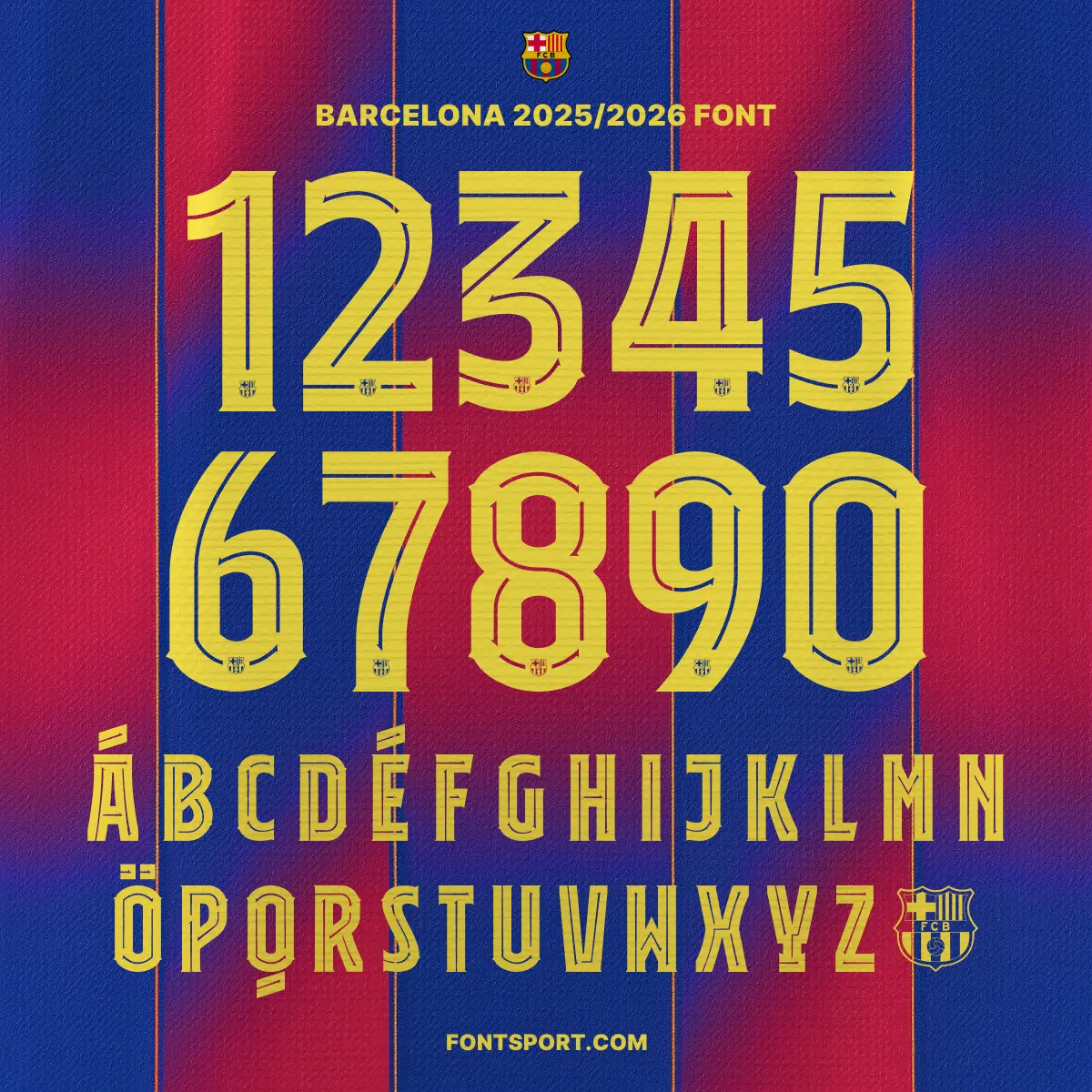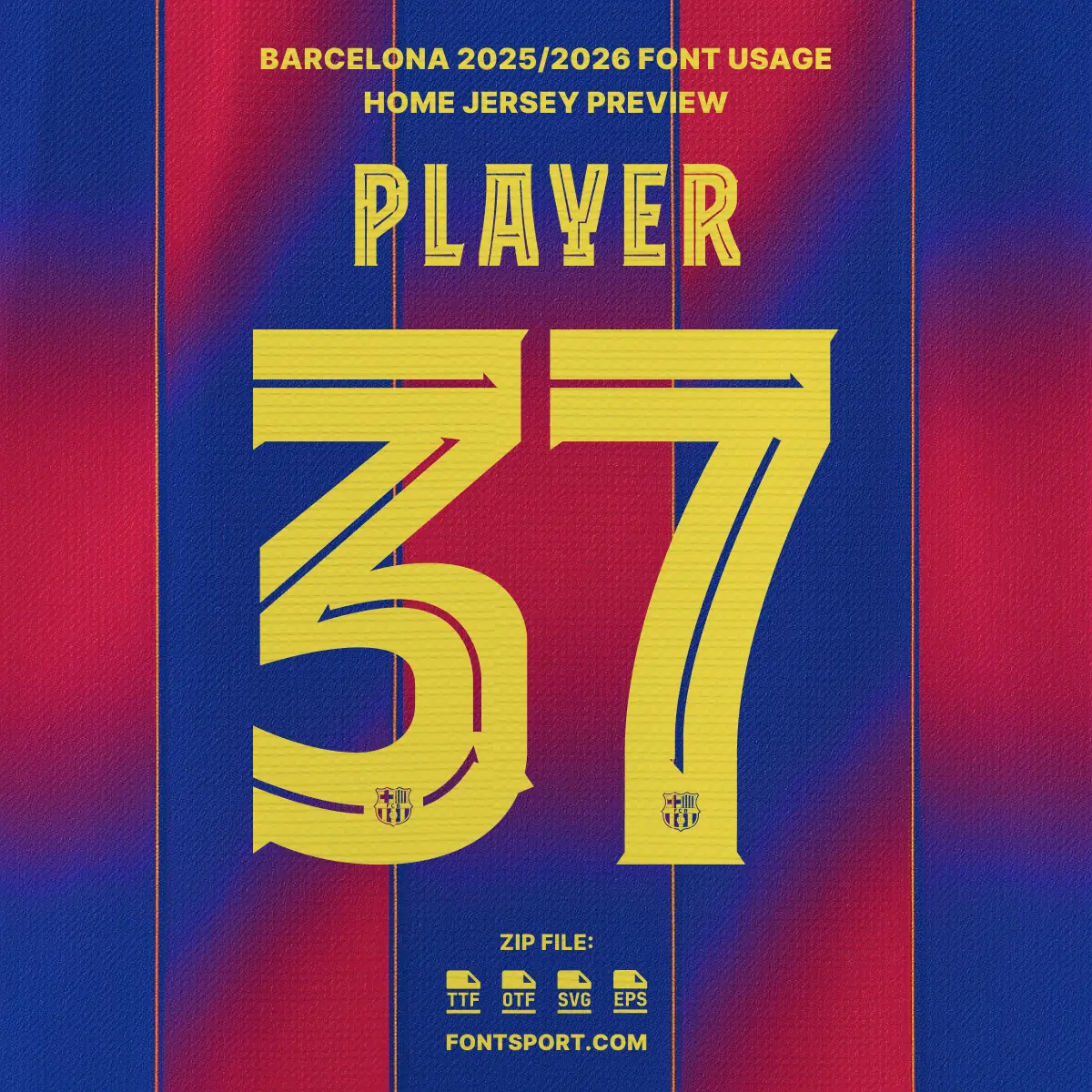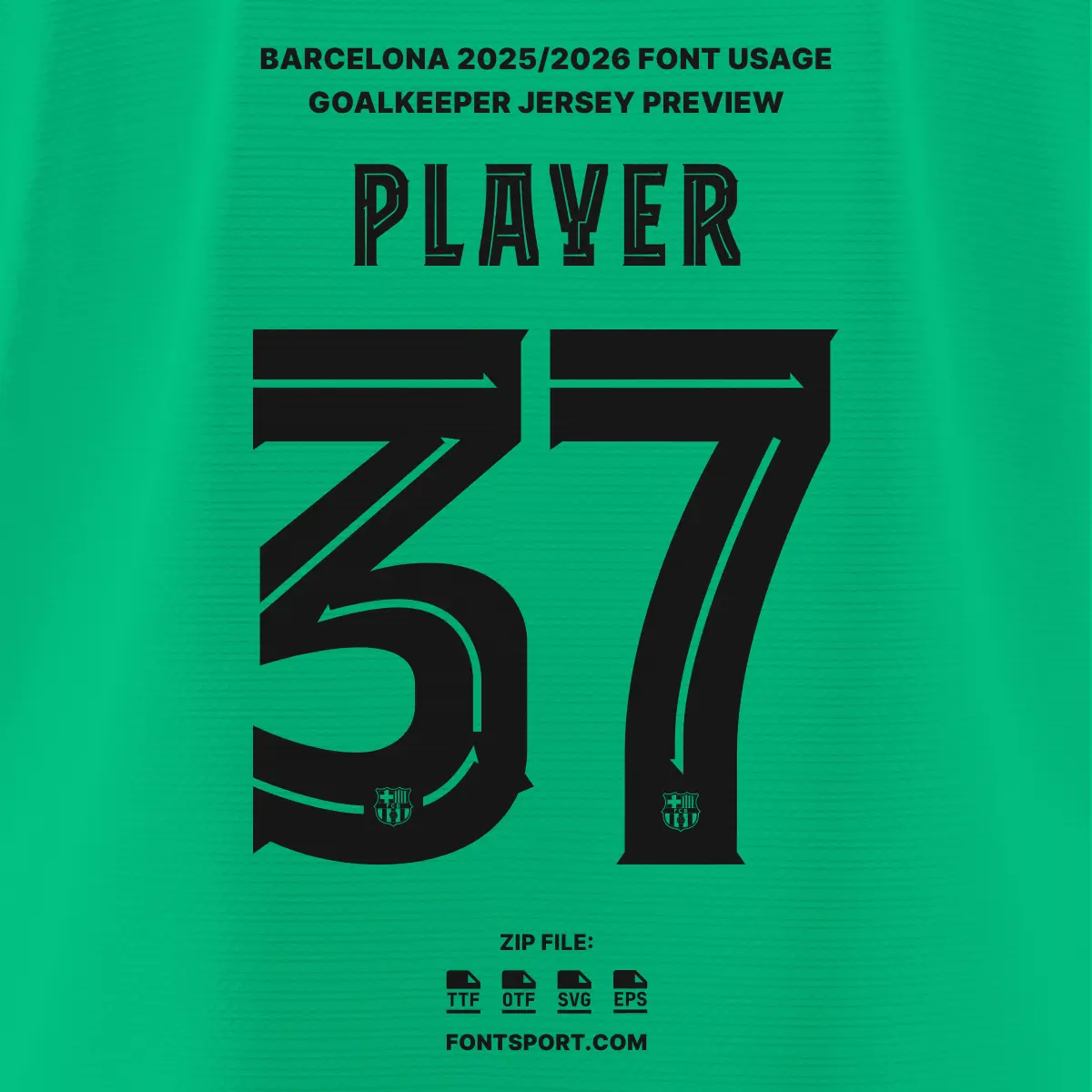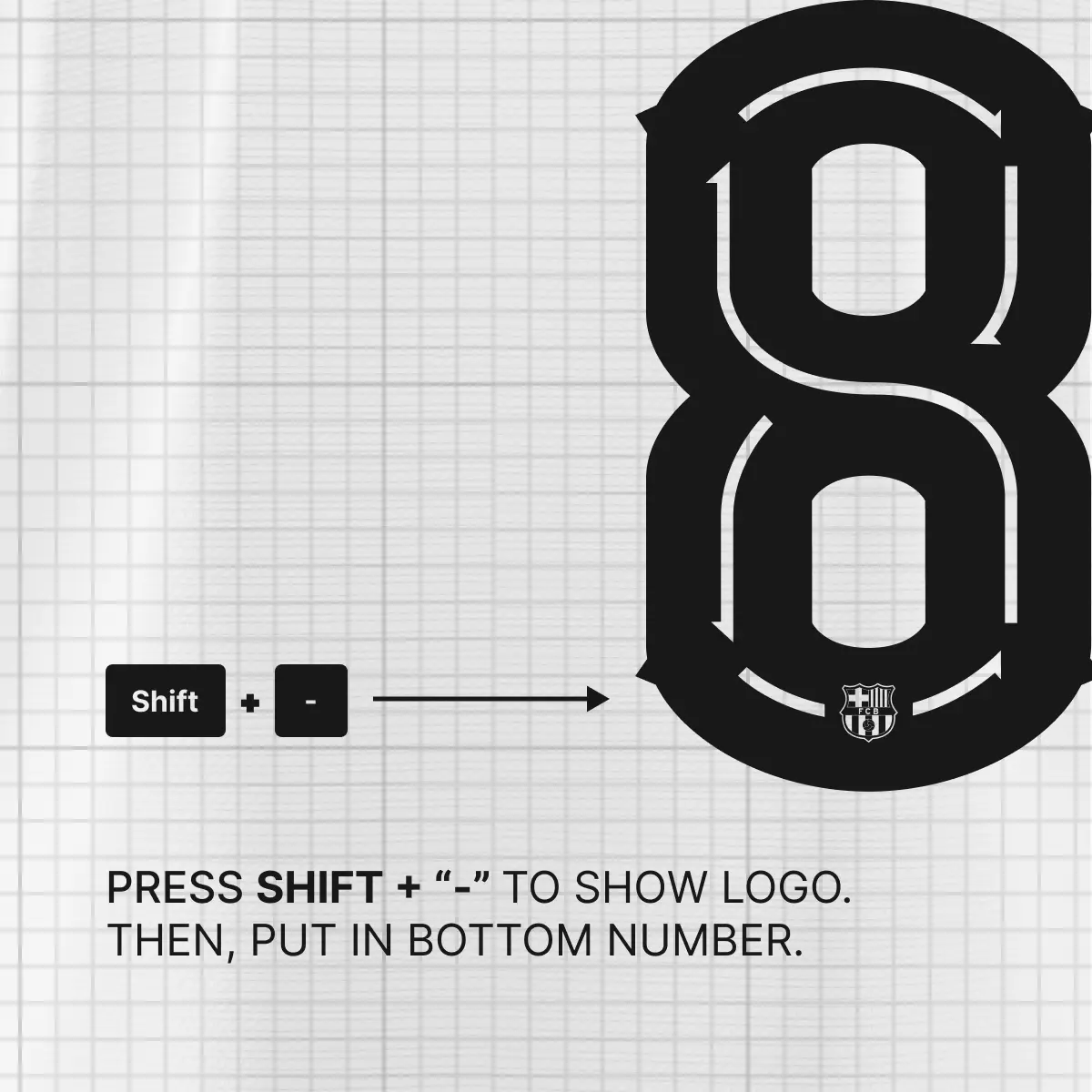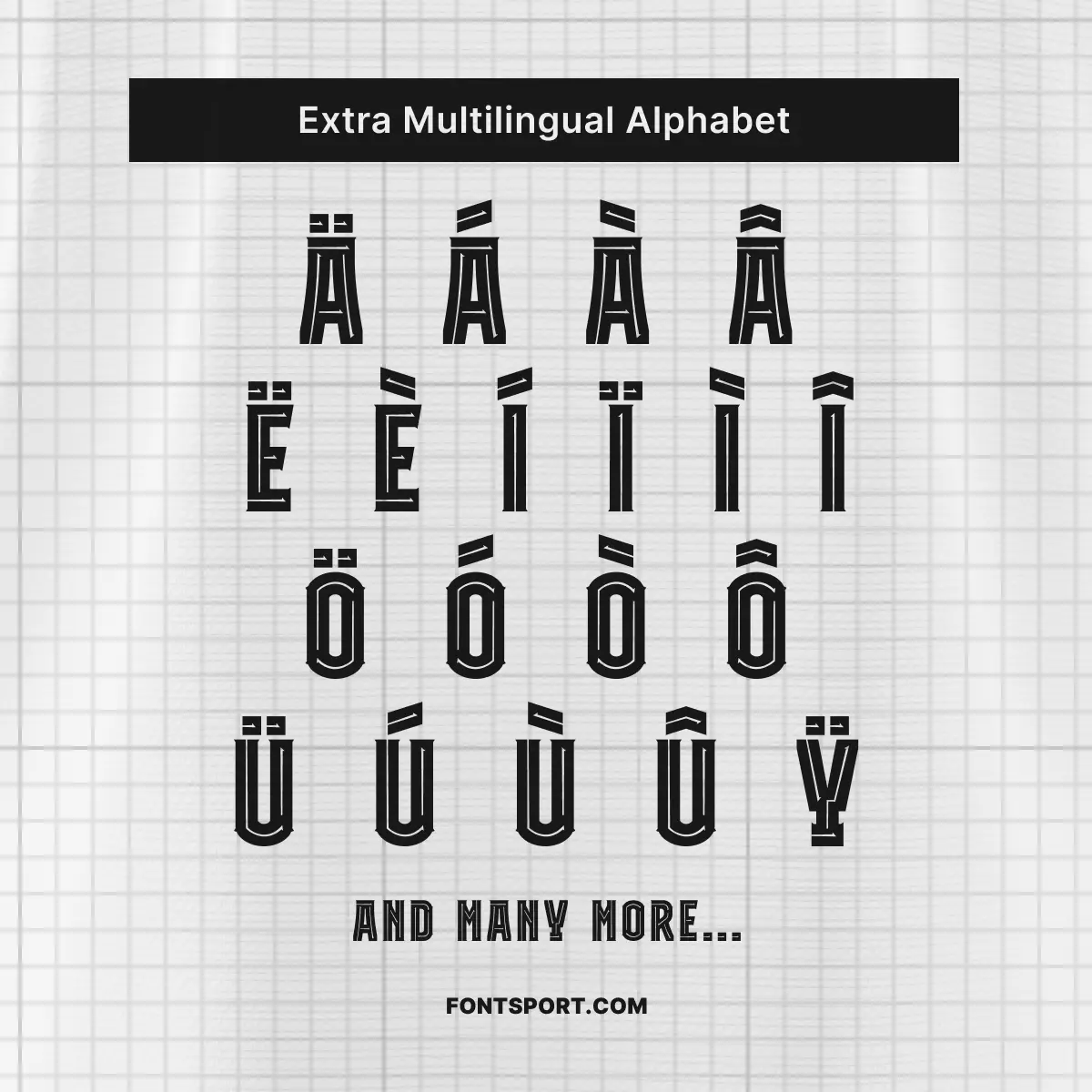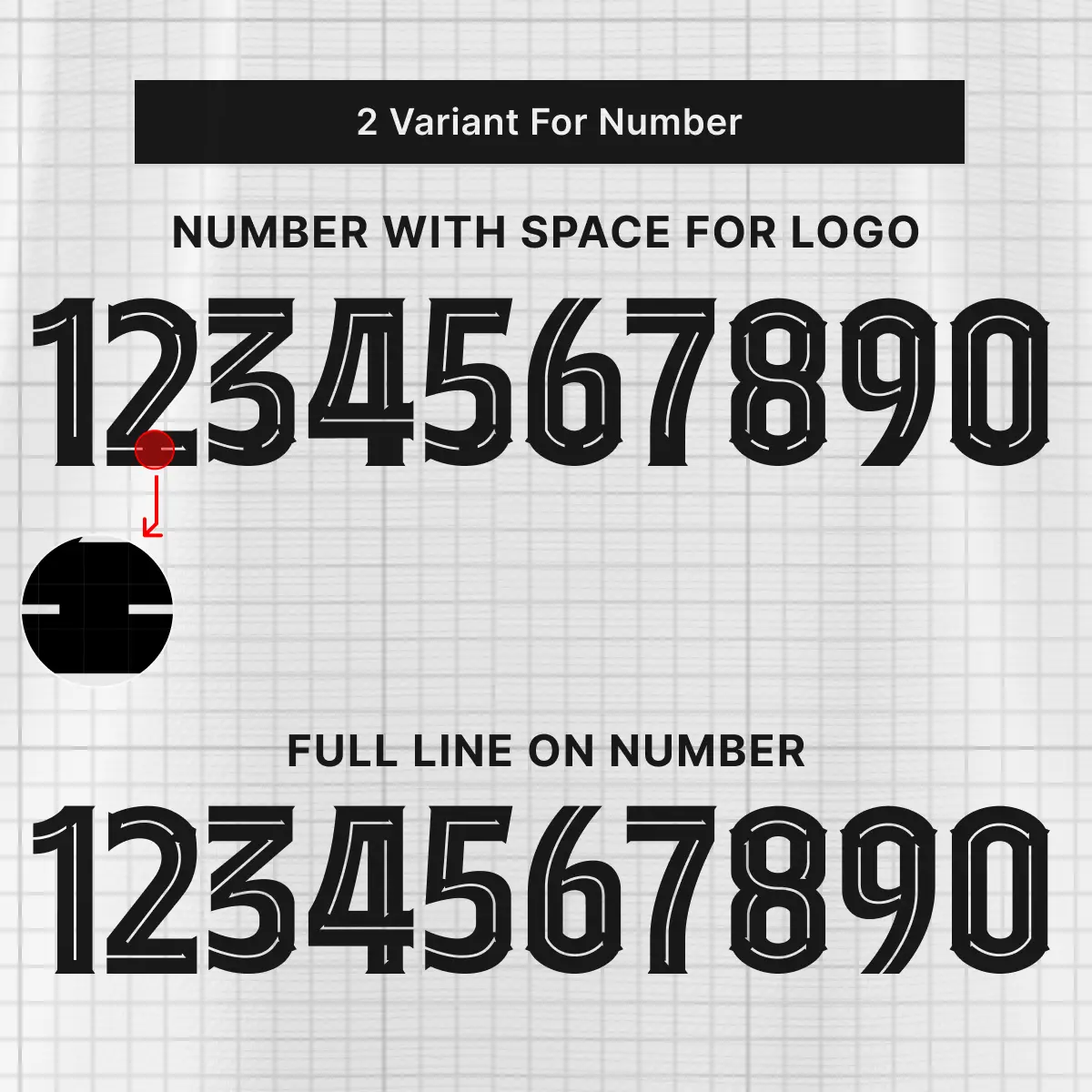
Barcelona Font Kit 2025/2026
The Barcelona 2025/2026 Font Kit is a bold, modern typeface designed exclusively for FC Barcelona’s jerseys in La Liga and the UEFA Champions League (UCL). Whether you’re designing football kits, posters, or fan merchandise, this Font Football kit delivers clean, professional results that mirror the official look seen on players during matchdays.
This kit captures the iconic Barça aesthetic — sleek and powerful, with a distinctive layout that gives your project an authentic edge. Featuring two number variants (flat and logo-embedded), this kit is ideal for everything from sports branding to social content.
• Uppercase A–Z Alphabet & Numbers 0–9
• Two Number Variants – flat and half-line styles to insert the Barça logo
• Built-in FC Barcelona logo glyph – type to reveal via shortcut
• Multilingual Alphabet Support – includes Latin accented characters
🔵 Inspired by the official FC Barcelona font used in La Liga and UEFA Champions League 2025/2026 season.
Barcelona 2025/2026 Full Font Kit Preview – Official Typeface with Numbers 0–9 and Multilingual Uppercase A–Z for Fans and Designers.
Barcelona 2025/2026 Font